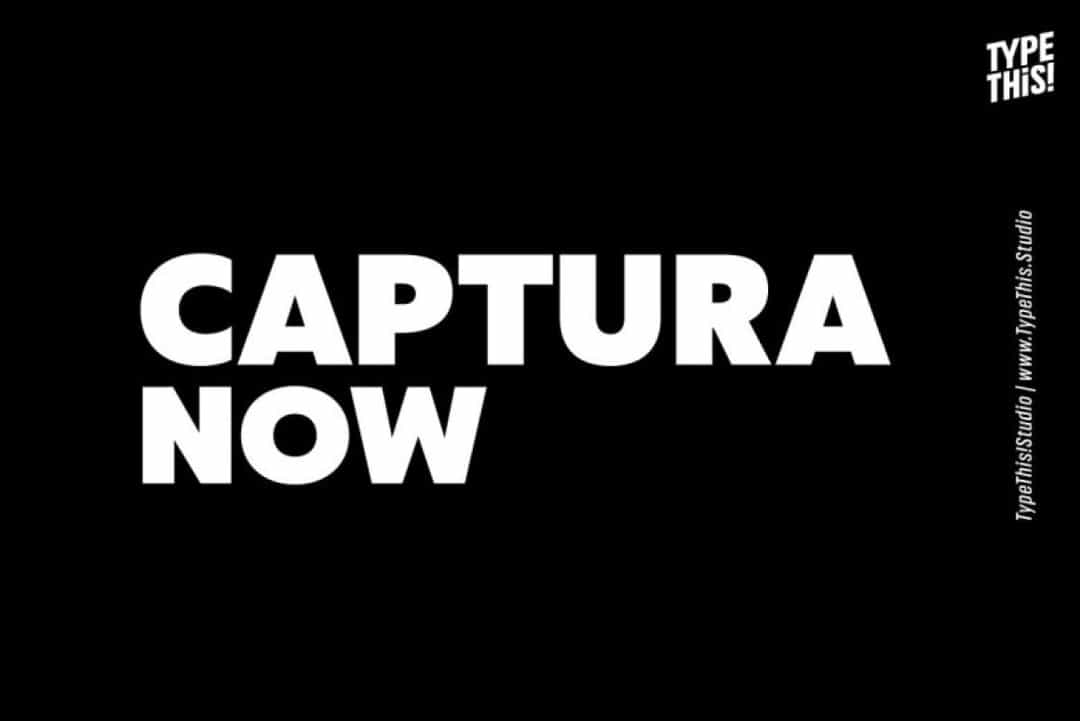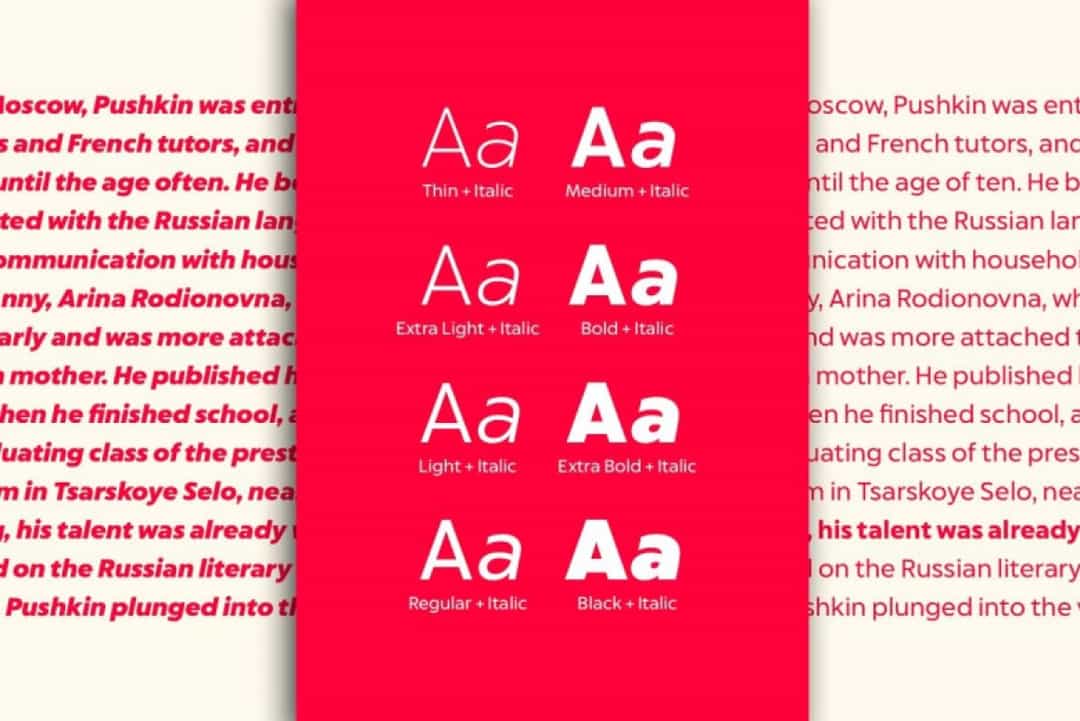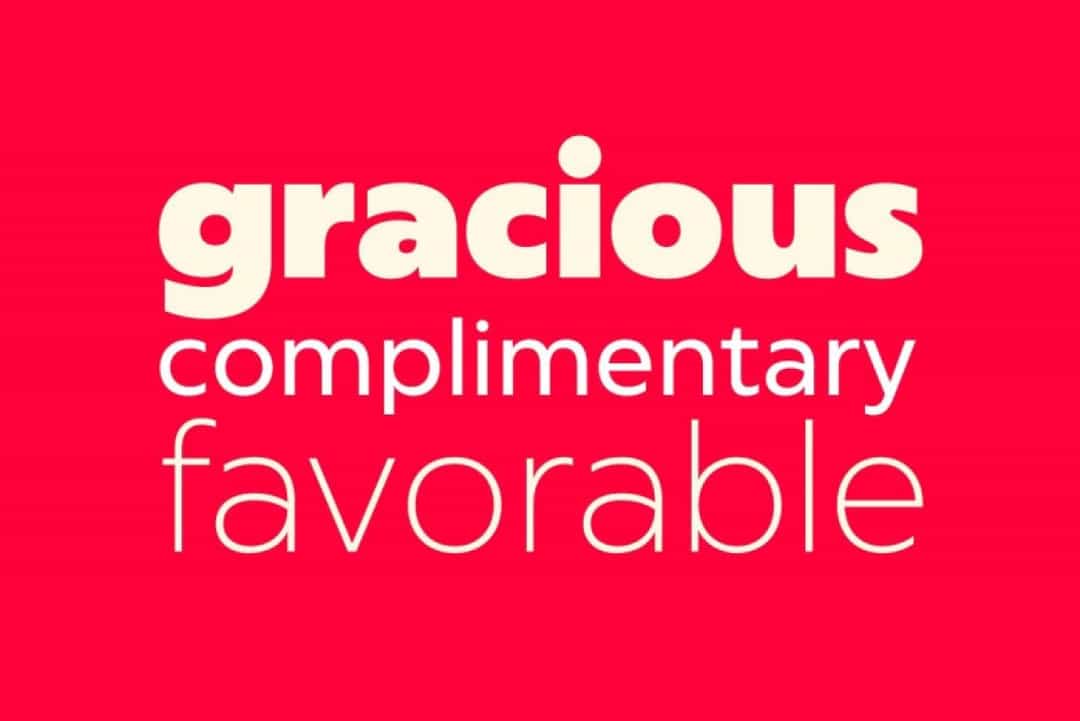
Captura Now Font Forms have been carefully refined for an inviting appearance with balanced spacing and Kerning providing its soft rhythm that creates its warm-hearted facial structure. Captura Now gives you the power to translate designs from Cyrillic languages such as Russian or Ukrainian into any Latin-based language, such as Vietnamese.